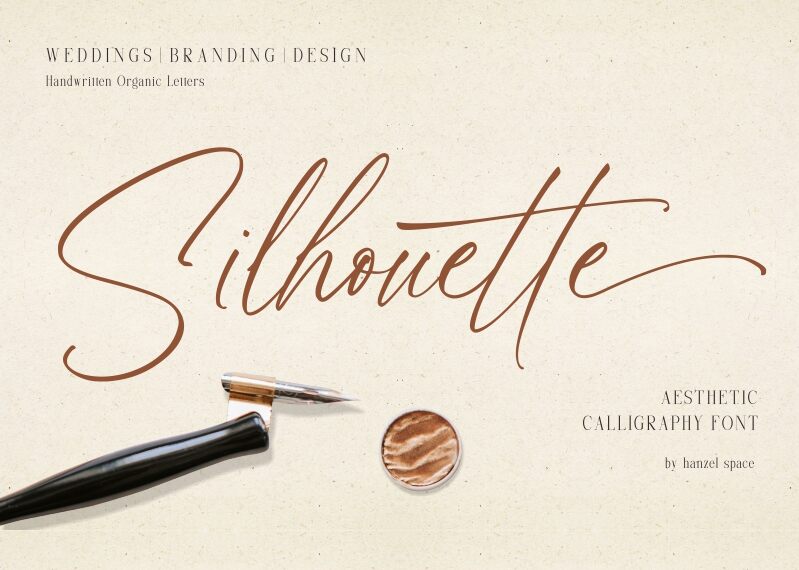
Silhouette
Silhouette, the exquisite font designed by Hanzel Space, is a perfect blend of elegance and simplicity. The light weight of the handwritten signature style creates an irresistible charm that makes your text stand out. With its smooth curves and graceful strokes, Silhouette is suitable for a variety of projects ranging from wedding invitations to book covers. It can add a personal touch to your portfolio website or create an inviting atmosphere on your coffee shop menu. This typeface is versatile enough to be used in both print and digital media, making it an excellent choice for any designer or brand looking for an elegant touch.
Introducing Silhouette - Aesthetic Calligraphy Font
Silhouette - Aesthetic Calligraphy Font with contemporary, sophisticated accents. It is perfect for branding, wedding invites, tagline, cards, maybe for label and logo.
Silhouette includes full set of gorgeous uppercase and lowercase letters, numerals, a large range of punctuation and ligatures. It expresses beauty of handwriting. What you get
Standard Ligatures
Numerals and Punctuation